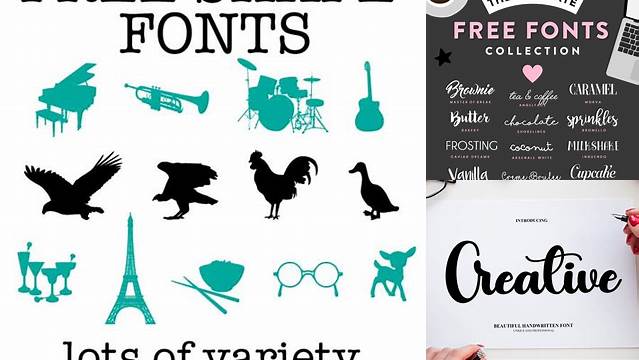
Font Dingbats Free: Your Guide To Unique Typography
Are you looking to add a unique touch to your designs? Font dingbats might just be the answer! These quirky and creative font characters aren't your typical letters and numbers; they're symbols, icons, and illustrations that can elevate your projects from ordinary to extraordinary. In this comprehensive guide, we'll dive deep into the world of font dingbats, exploring what they are, where to find them for free, and how to use them effectively. So, buckle up and get ready to unleash your creative potential with the power of font dingbats!
What are Font Dingbats?
Let's start with the basics: What exactly are font dingbats? Simply put, dingbats are font characters that aren't letters, numbers, or punctuation marks. Instead, they're decorative elements, symbols, icons, and even miniature illustrations. Think of them as the emojis of the typography world, but with a more sophisticated and versatile twist. These little graphical wonders can be used in a multitude of ways, from adding visual flair to documents and presentations to creating unique logos and branding materials. They come in various styles, ranging from whimsical and playful to elegant and professional, making them a valuable asset for any designer or creative enthusiast. The beauty of dingbats lies in their ability to communicate visually, adding depth and personality to your work without relying solely on text. They can be used to emphasize points, break up large blocks of text, or simply add a touch of visual interest. The possibilities are endless, and with a little creativity, you can transform your designs into captivating visual experiences. So, next time you're looking for that extra something to make your project stand out, remember the power of font dingbats – those tiny typographical treasures that can make a big impact.
The History and Evolution of Dingbats
The story of dingbats is a fascinating journey through the evolution of printing and typography. Their origins can be traced back to the early days of printing, when printers used decorative ornaments and symbols to fill space and add visual appeal to their pages. These early dingbats were often hand-carved and used as standalone elements, separate from the text itself. However, as printing technology advanced, these decorative elements were incorporated into fonts, becoming an integral part of the typographical landscape. The term "dingbat" itself is believed to have originated from the printing industry, although its exact etymology remains a bit of a mystery. Some speculate that it comes from the sound of metal type hitting the printing press, while others believe it's simply a playful term for these decorative characters. Regardless of its origin, the name "dingbat" has stuck, and it's now the universally recognized term for these unique typographical elements. Over the years, dingbats have evolved alongside printing technology and design trends. From simple geometric shapes and floral ornaments to intricate illustrations and contemporary icons, dingbats have constantly adapted to meet the changing needs of designers and communicators. The advent of digital fonts has further expanded the possibilities of dingbats, allowing for greater creativity and flexibility in their design and usage. Today, you can find dingbat fonts covering a vast range of themes and styles, from vintage and retro to modern and minimalist. Whether you're looking for classic symbols, whimsical illustrations, or contemporary icons, there's a dingbat font out there to suit your needs. The history of dingbats is a testament to their enduring appeal and versatility. From their humble beginnings as decorative ornaments to their current status as essential design elements, dingbats have played a significant role in shaping the visual landscape of communication.
Where to Find Free Font Dingbats
Now that you know what dingbats are and why they're so awesome, let's talk about where to find them, especially free ones! The good news is that the internet is brimming with resources for free font dingbats, you just need to know where to look. Here are some of the best places to start your search:
- Font Websites: Websites like DaFont, FontSpace, and 1001 Fonts offer a huge selection of free fonts, including a dedicated category for dingbats. You can browse through thousands of options, filtering by style, theme, and license to find the perfect dingbats for your project.
- Creative Marketplaces: While Creative Market and similar platforms are known for their premium fonts, they often have sections with free goods, including dingbats. Keep an eye out for these hidden gems, as they can offer high-quality dingbats that you can use in your projects.
- Google Fonts: Google Fonts is a fantastic resource for web fonts, and it also includes a selection of dingbat fonts. These fonts are not only free but also optimized for web use, making them a great choice for online projects.
- Free Font Websites: Many websites specialize in offering free fonts, and they often have a wide variety of dingbats available. Websites like Font Squirrel and UrbanFonts are worth checking out for their curated collections of free fonts.
- Design Blogs and Communities: Design blogs and online communities often share free font resources, including dingbats. Keep an eye out for blog posts and forum threads that feature collections of free dingbat fonts.
Don't be afraid to experiment with different dingbats, styles, and placements. Let your imagination run wild and discover the endless possibilities that dingbats offer. With a little creativity and the right resources, you can create stunning designs that stand out from the crowd.
So go ahead, explore the world of free font dingbats, and start adding a touch of magic to your designs today! You'll be amazed at the difference these little typographical treasures can make.